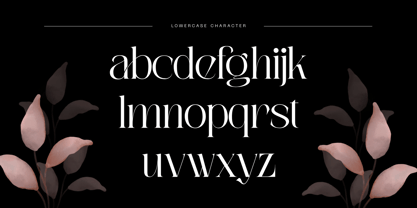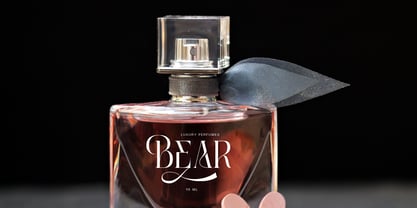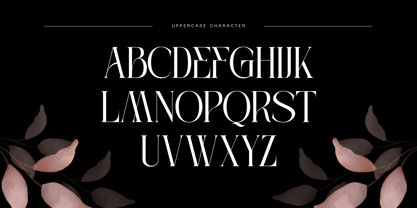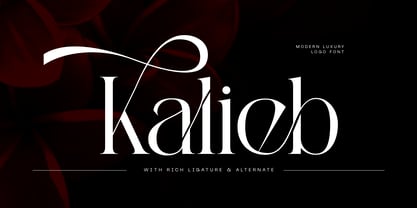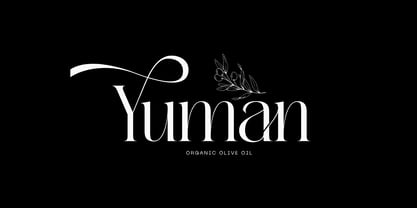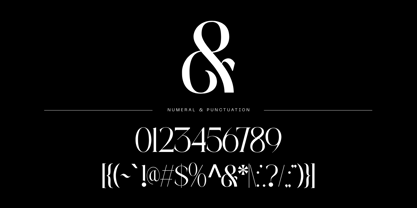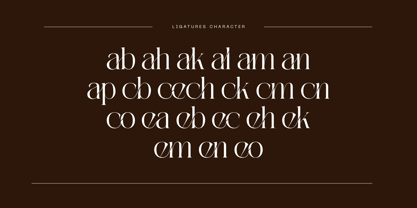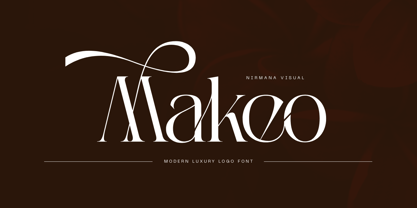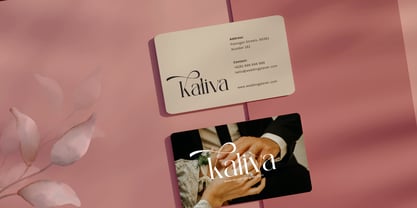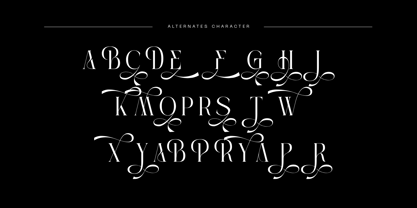
Kalieb Luxury
by Nirmana Visual
The Kalieb Luxury Font Family was designed by Sigit Dwipa and published by Nirmana Visual. Kalieb Luxury contains 2 styles and family package options. More about this family
Kalieb Luxury is a refined serif font crafted for premium logos and branding. With elegant Regular and graceful Italic styles, it exudes sophistication and timeless class. Perfect for high-end fashion, beauty, and lifestyle brands, Kalieb Luxury brings a touch of exclusivity to every design. Its sleek curves and stylish presence make it a standout choice for those who value detail, elegance, and luxury in visual identity.